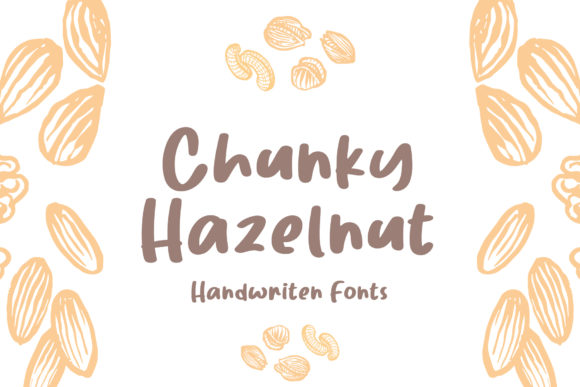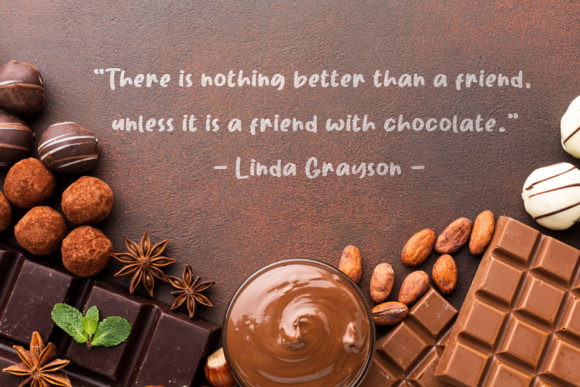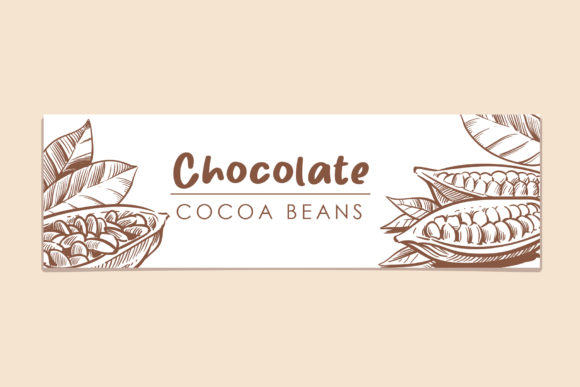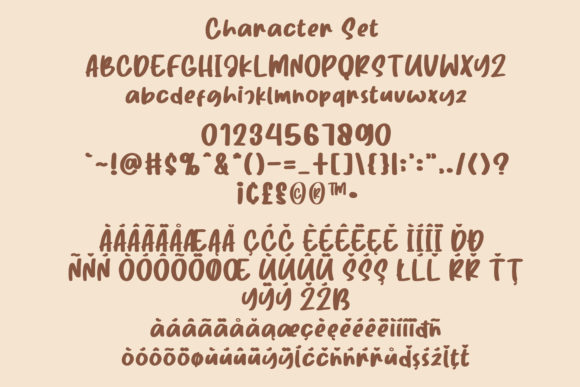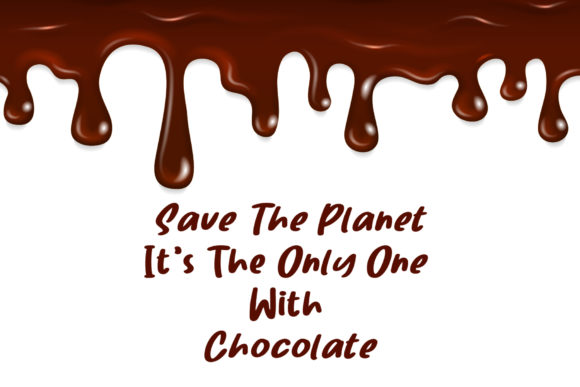
Chunky Hazelnut Font
About Chunky Hazelnut Font
Chunky Hazelnut is a cute and whimsical handwritten font. Its playful and sweet style makes this font adaptable and likable. Have fun with this beautiful font and explore its endless variations.